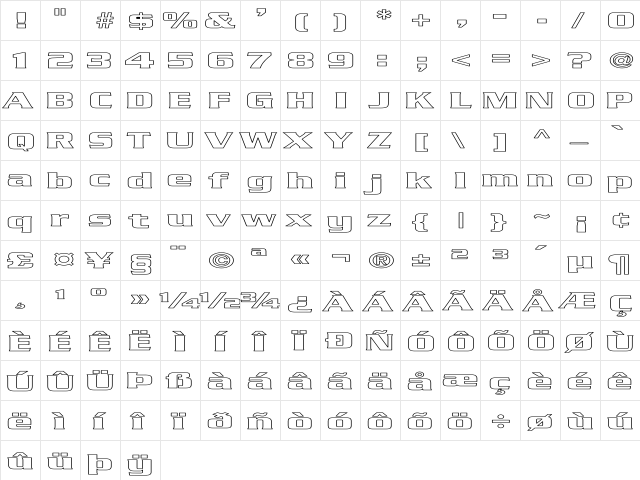
Serpentine-Bold-Bold HE Regular
Design Context for Serpentine-Bold-Bold HE Typeface
Serpentine-Bold-Bold HE is a composed and adaptable typeface that performs quietly and consistently across a wide range of design contexts. The heavy weight commands attention and anchors typographic hierarchies.